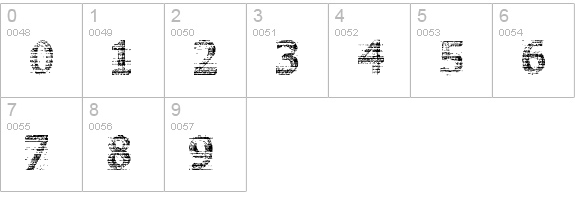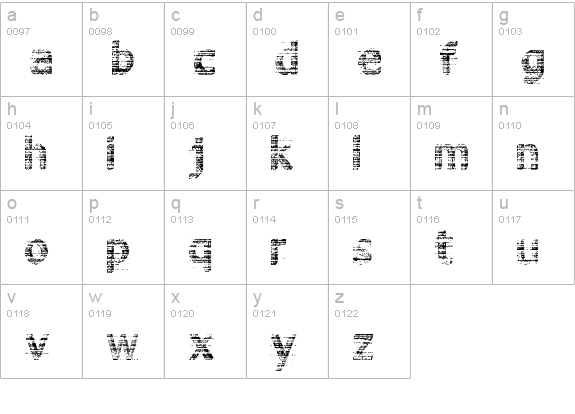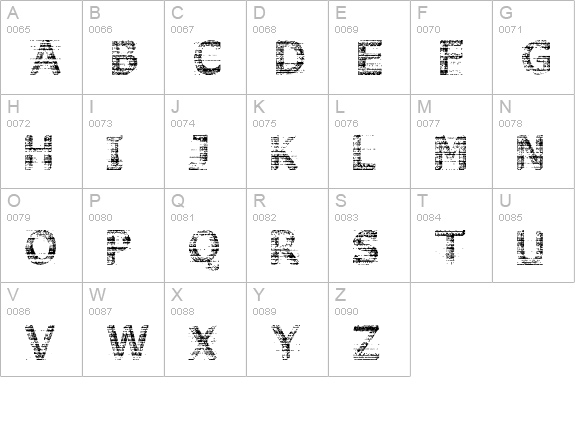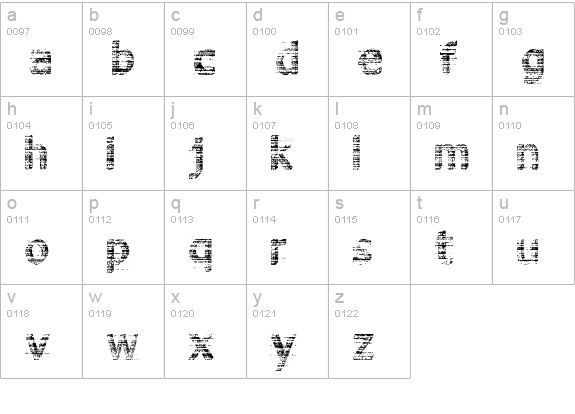
3D Noise Font Details
Introducing the captivating and dynamic 3D Noise font, a striking typeface that brings a modern twist to traditional design. This unique font features intricate noise texture elements that add depth and dimension to each character, creating a visually stunning effect. Perfect for projects that require a bold and edgy appearance, the 3D Noise font is sure to make a lasting impression. Best of all, this exceptional font is available for free download at FontsMarket.com. Whether you're working on a graphic design project, website, or any other creative endeavor, the 3D Noise font will elevate your work to new heights. Don't miss out on this incredible opportunity to enhance your designs with this eye-catching and versatile typeface. Download the 3D Noise font today and unleash your creativity!